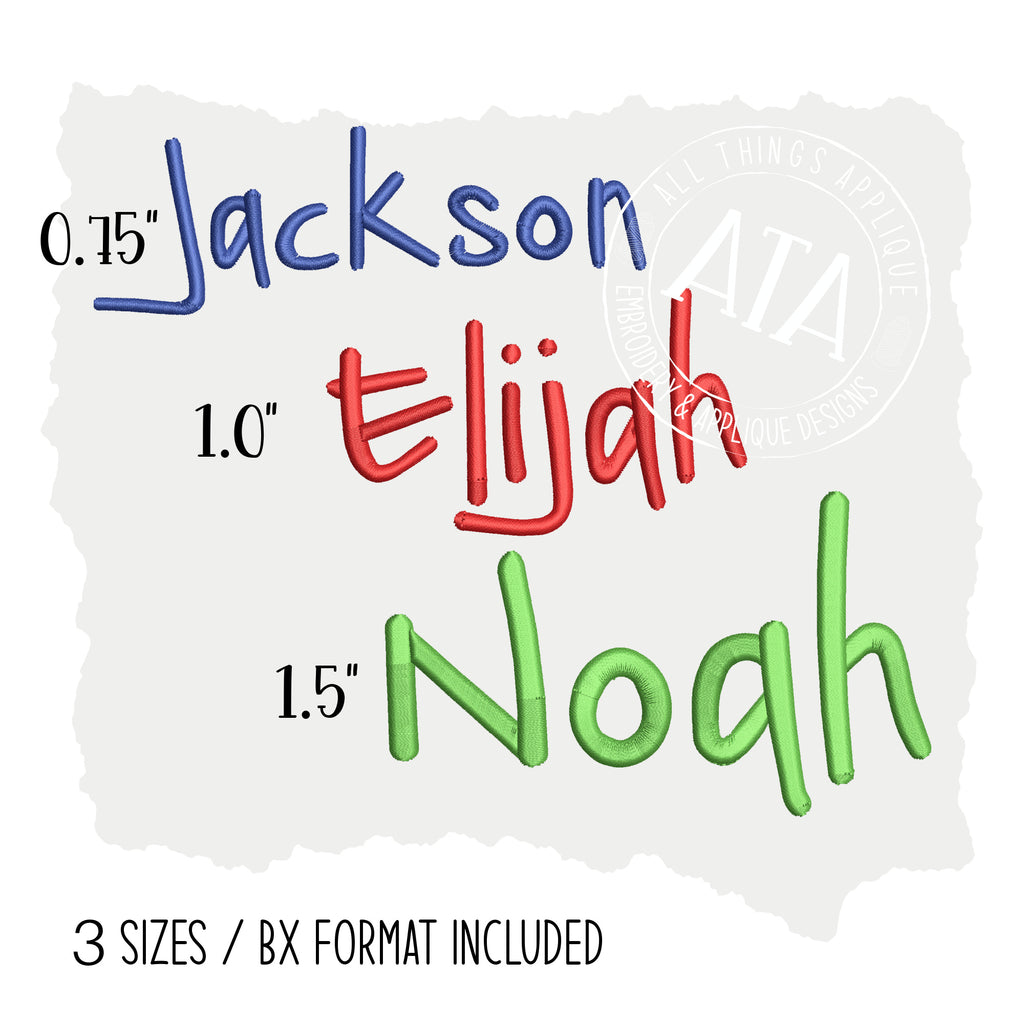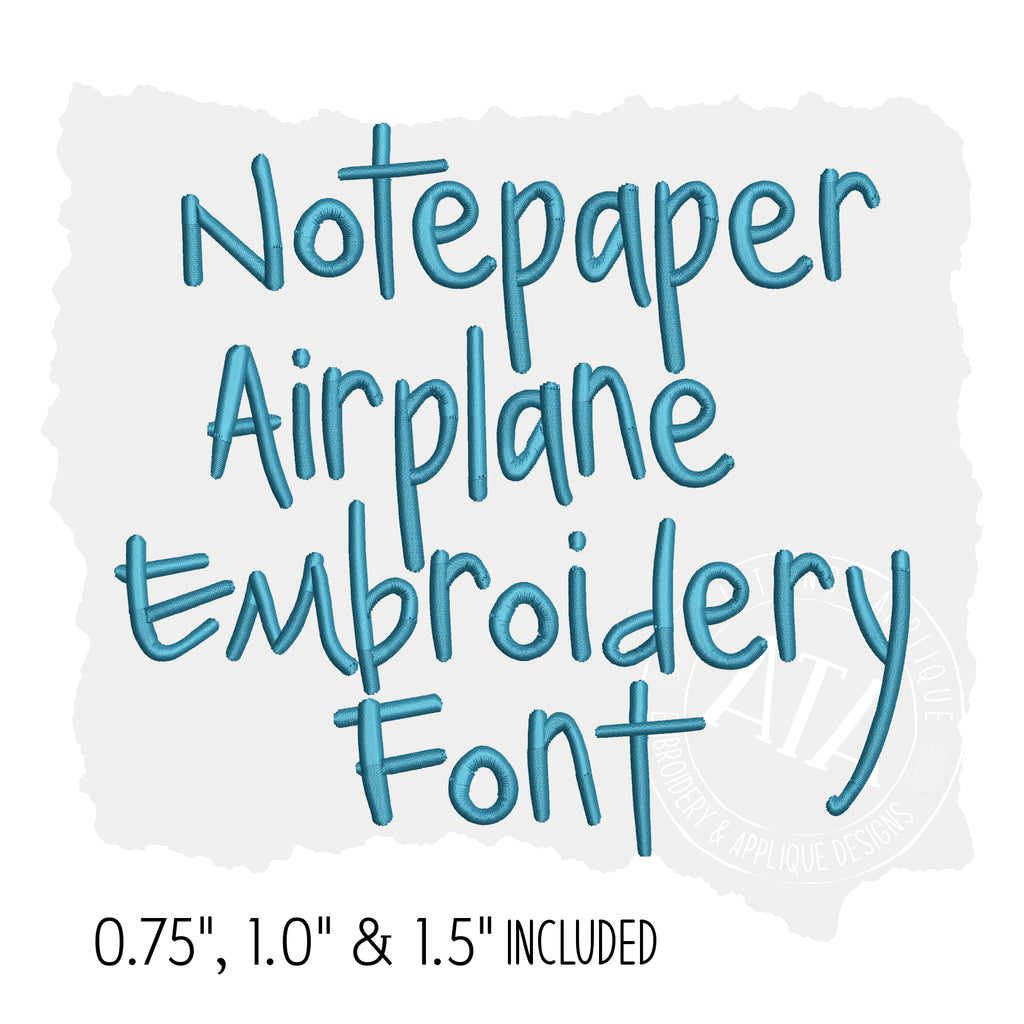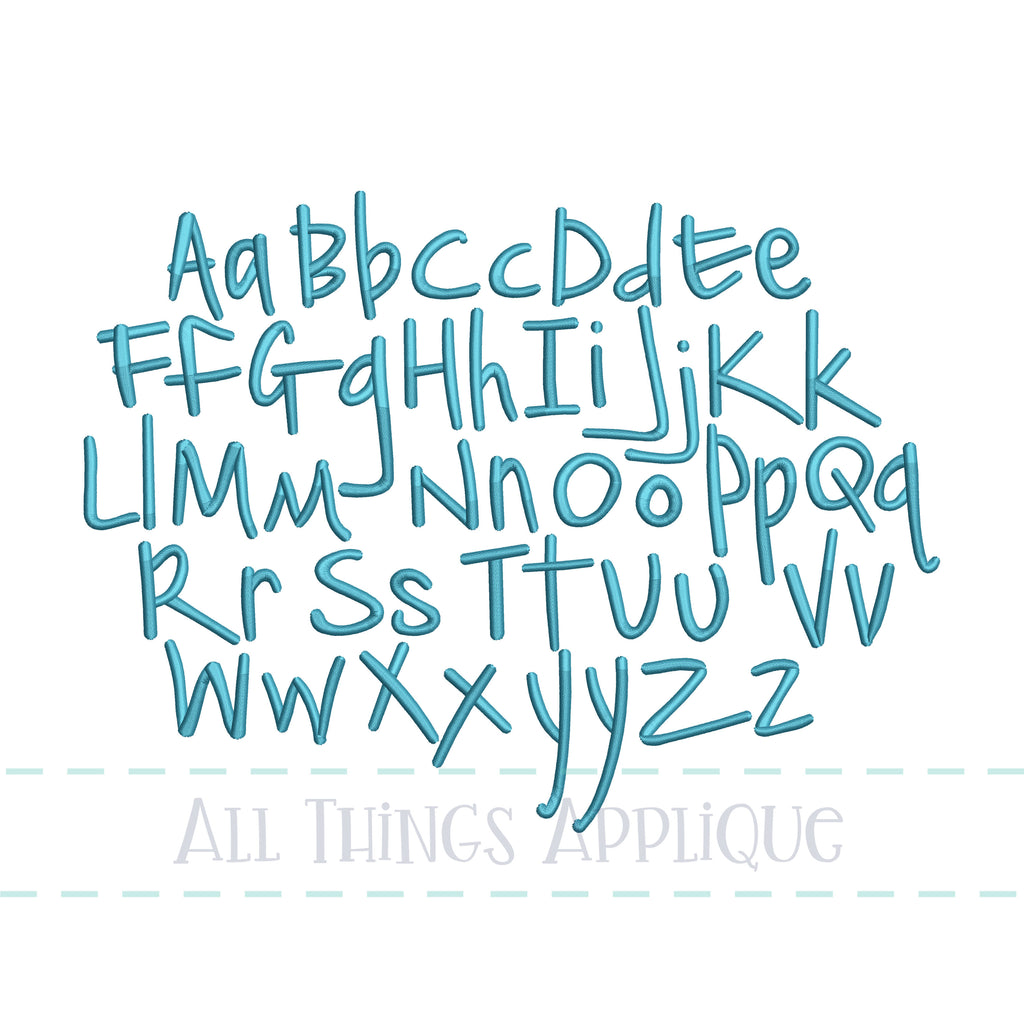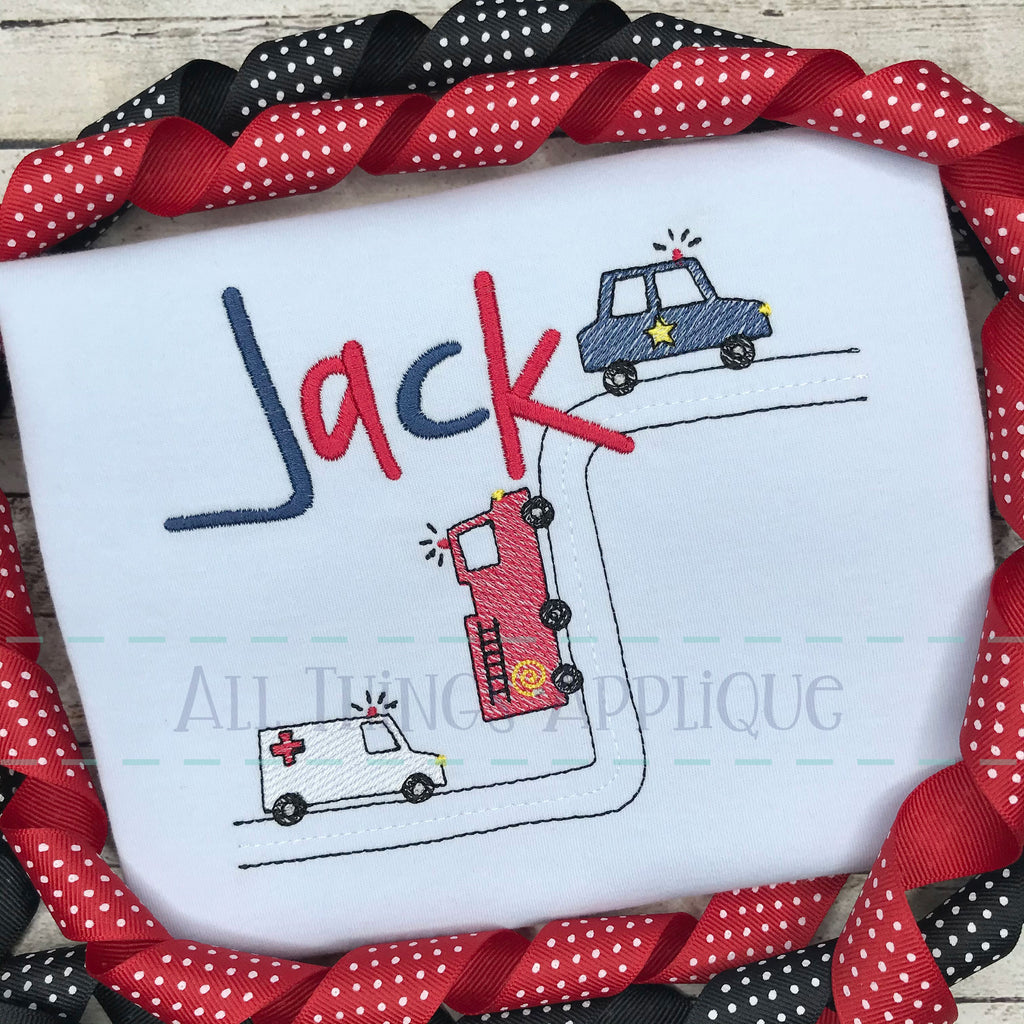
Notepaper Airplane Embroidery Font
A quirky and fun handwritten embroidery font perfect to stitch with any design!
You will receive 26 letters in both Uppercase and Lowercase and in 3 sizes: 0.75", 1.0", 1.5"
Note: The size of this font is based on the capital "C". One of the things that gives this embroidery font it's unique style are the exaggerated ascender and descender strokes. For example, in the 1" font, the capital C is exactly 1". The capital A is 1.58", the capital K is 1.46" and so on.